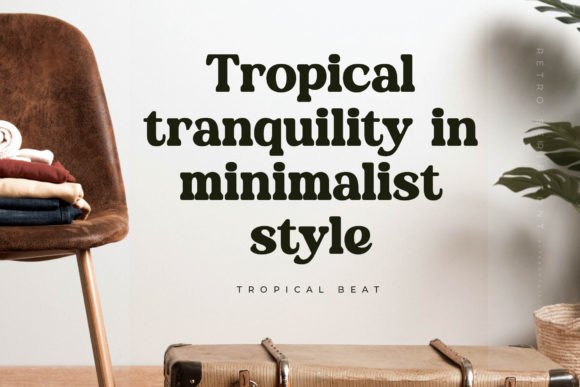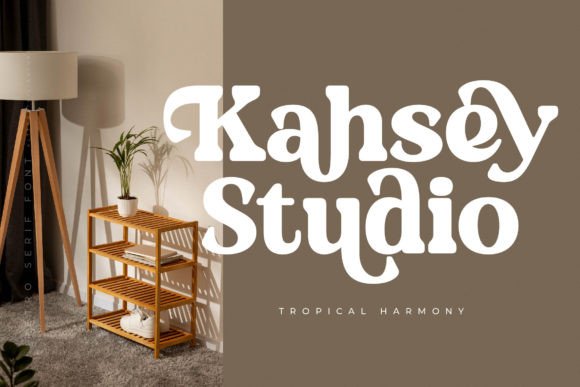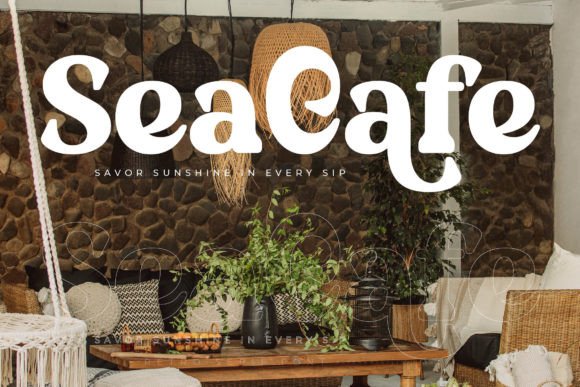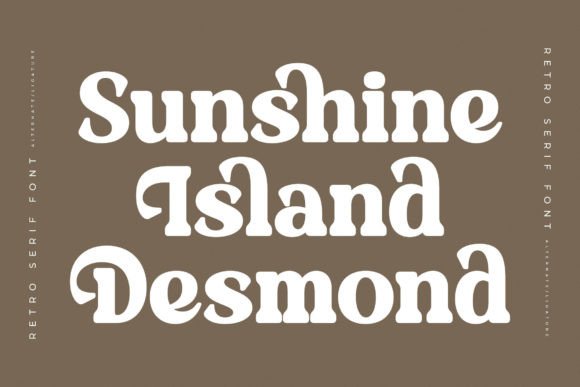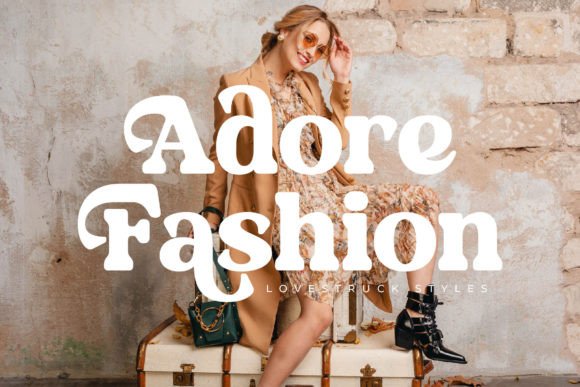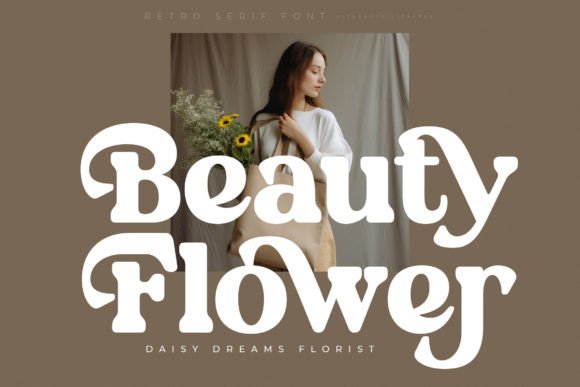
The Ultimate Guide to Daylist Beach Font: Elevate Your Designs with Luxury Serif Elegance
I’ll never forget the design project that had me on the hunt for the perfect font. I was working on a luxury branding campaign for a high-end beach resort, and I needed a font that exuded elegance, sophistication, and a touch of coastal charm. That’s when I stumbled upon Daylist Beach, a stunning Retro Serif Font from Letterena. In this article, I’ll share my experience with Daylist Beach, its features, and how to make the most of this beautiful font in your designs.
An Honest Review of Daylist Beach Font
What I Love About Daylist Beach ✨
- ✅ Luxurious and elegant serif design, perfect for high-end projects
- ✅ Versatile and suitable for a wide range of applications, from logos to packaging
- ✅ Beautifully crafted to add a touch of sophistication and glamour to any design
- ✅ Easy to read and works well in both large and small sizes
While Daylist Beach is an exceptional font, there are a few minor quirks to be aware of:
- 🤔 Some users may find the font’s serifs a tad too ornate for certain projects
- ⚠️ Limited availability of condensed or expanded versions, which might limit its use in certain layouts
- Experiment with OpenType features, such as ligatures and stylistic alternates, to add an extra layer of elegance to your design
- Explore the font’s glyphs and OpenType features, such as swashes and alternates, to create unique and stunning designs
The Story Behind Daylist Beach Font
Daylist Beach was designed by the talented team at Letterena, with inspiration from classic beachside typography and a passion for creating elegant, high-end fonts. The font’s creators aimed to craft a typeface that would evoke the feeling of luxury and sophistication, while still being approachable and easy to read.
| Font Name | Daylist Beach Font |
| Author | Letterena Studios |
| What is Daylist Beach font best used for? | Daylist Beach is suitable for a wide range of projects, including logos, branding, packaging, posters, and more. |
| Does Daylist Beach support OpenType features? | Yes, Daylist Beach supports OpenType features, including ligatures, stylistic alternates, and more. |
Daylist Beach Font is an exceptional addition to any designer’s toolkit. Its luxurious and elegant serif design makes it perfect for high-end projects, and its versatility ensures it can be used in a wide range of applications. With its OpenType features, glyphs, and stylistic alternates, Daylist Beach is sure to elevate your designs and add a touch of sophistication and glamour.